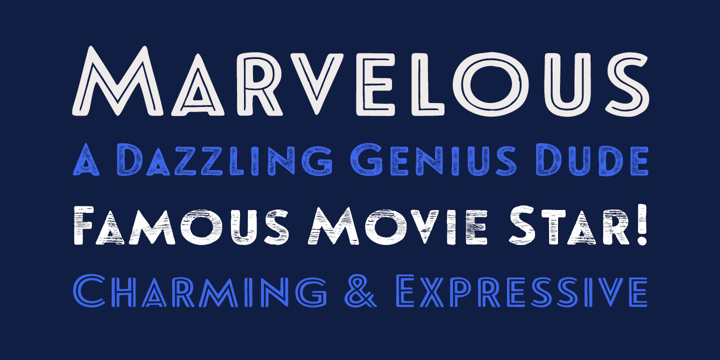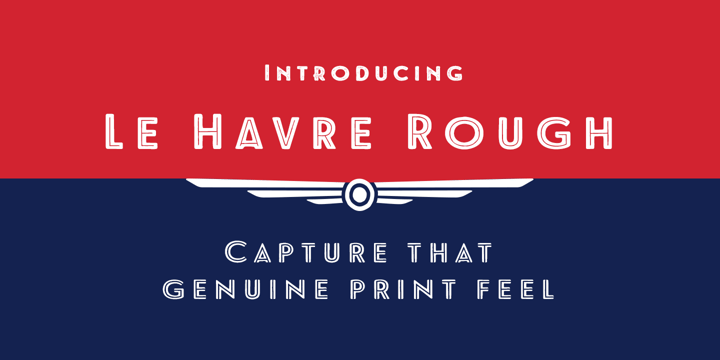
Le Havre Rough™
by insigne
The Le Havre Rough Font Family was designed by Jeremy Dooley and published by insigne. Le Havre Rough contains 12 styles and family package options. More about this family
Le Havre Rough. It’s high-resolution, hand-crafted letterpress to the core. Based on insigne’s popular Le Havre typeface, this new heat-treated, weathered face of all caps joins the realism and appeal of the top-quality Le Havre family. Rough’s eroded, printed look is extremely customizable, offering eleven distressed choices that appear fantastic even at large output sizes. Go ahead. Try it on, say, a billboard. Maybe even Times Square. The font includes hand-printed texture and distinctive shadow choices, too. Options include three inline versions, two shadow layers, and a clean primary version. Combine and match the options easily as you need, layering normal and shadow variations to alter appearance and texture. You can activate Art Deco alternates by using OpenType contextual alternates. Rough has an extra-large character set for many languages. Additionally, the typeface offers 62 extra ornaments like arrows, emblems, numbers & lines. Use its full texture and grit to capture the classic, genuine print feel that you need in your project. A few suggestions for use: - In Photoshop, jigger with various 'anti-aliasing' options for best outcomes. Smooth or strong is generally best. - In Illustrator, the shadow layer occasionally doesn't align when using the regular layer. To fix the alignment, open the type drop-down menu and choose Area Type Options > Em Box Height. Learn more about the using layered type styles on this informative video.
Designers: Jeremy Dooley
Foundry: insigne